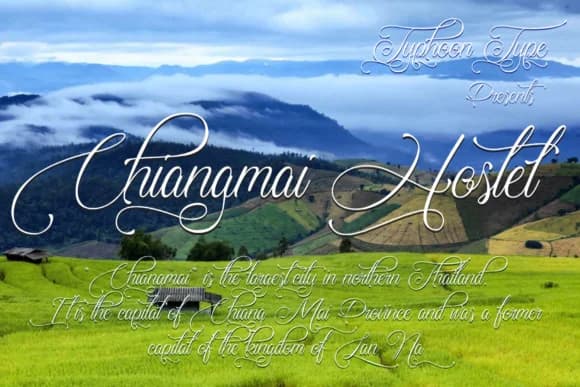
About Chiangmai Hostel Font
Chiangmai Hostel Font by Typhoon Type™ is a flowing handwritten script that brings organic elegance and contemporary character to your design work. With its smooth, natural letterforms and refined strokes, this typeface excels at capturing attention in contexts where personality and sophistication truly matter. The carefully balanced construction makes it visually distinctive without sacrificing readability, offering the perfect middle ground between casual charm and polished professionalism that works across different design disciplines.
Whether you're designing wedding invitation suites, creating custom cafe menu cards, developing boutique cosmetics packaging and branding, or crafting personalized stationery projects, Chiangmai Hostel delivers the human touch that modern audiences crave. The authentic handwritten qualities prevent designs from feeling mass-produced or generic, while the thoughtful letterform construction ensures consistently professional results whether you're working at headline sizes or smaller applications. Its balanced weight provides excellent legibility across different contexts, from printed materials to digital displays, making it a reliable choice for diverse projects.
The font supports multiple language characters, expanding your creative possibilities across different markets and international projects. This technical versatility, combined with the typeface's intuitive visual appeal, makes it equally suited for both commercial and personal creative endeavors. Discover how Chiangmai Hostel Font can bring authentic character and contemporary flair to your next design by getting it on Creative Fabrica.
Chiangmai Hostel Font is a script font that shines as a display or heading face. Pair it with a clean sans-serif or serif font for body text — the contrast creates a clear hierarchy while the two styles stay balanced and easy to read.